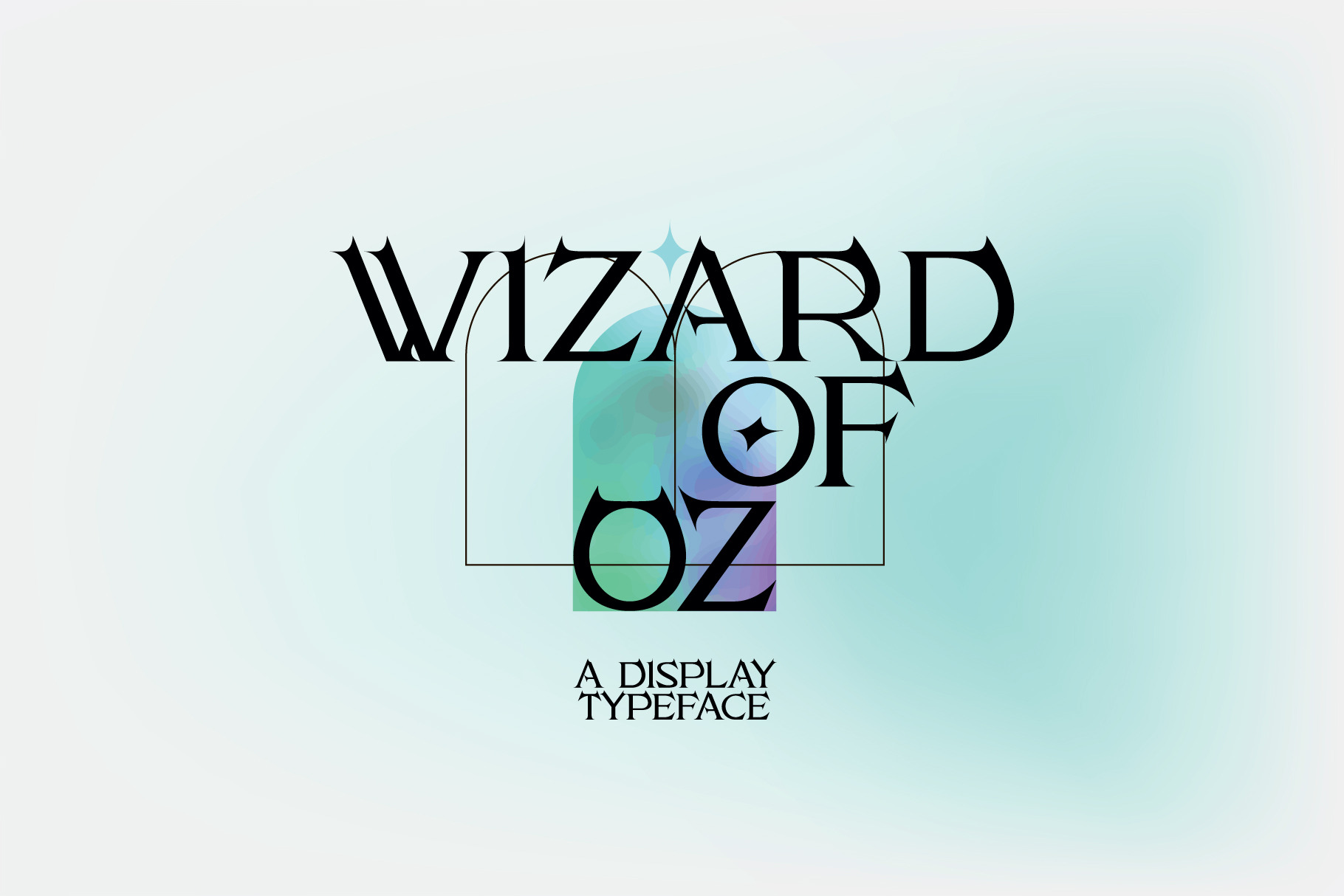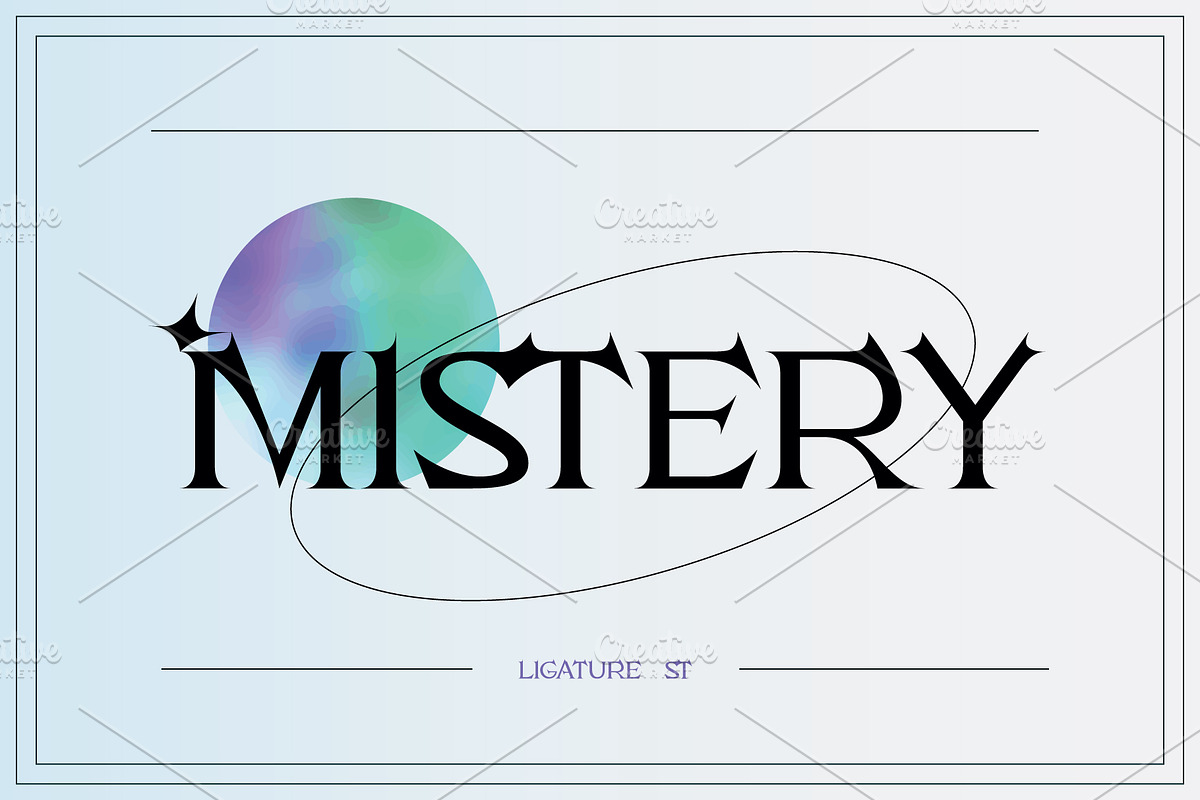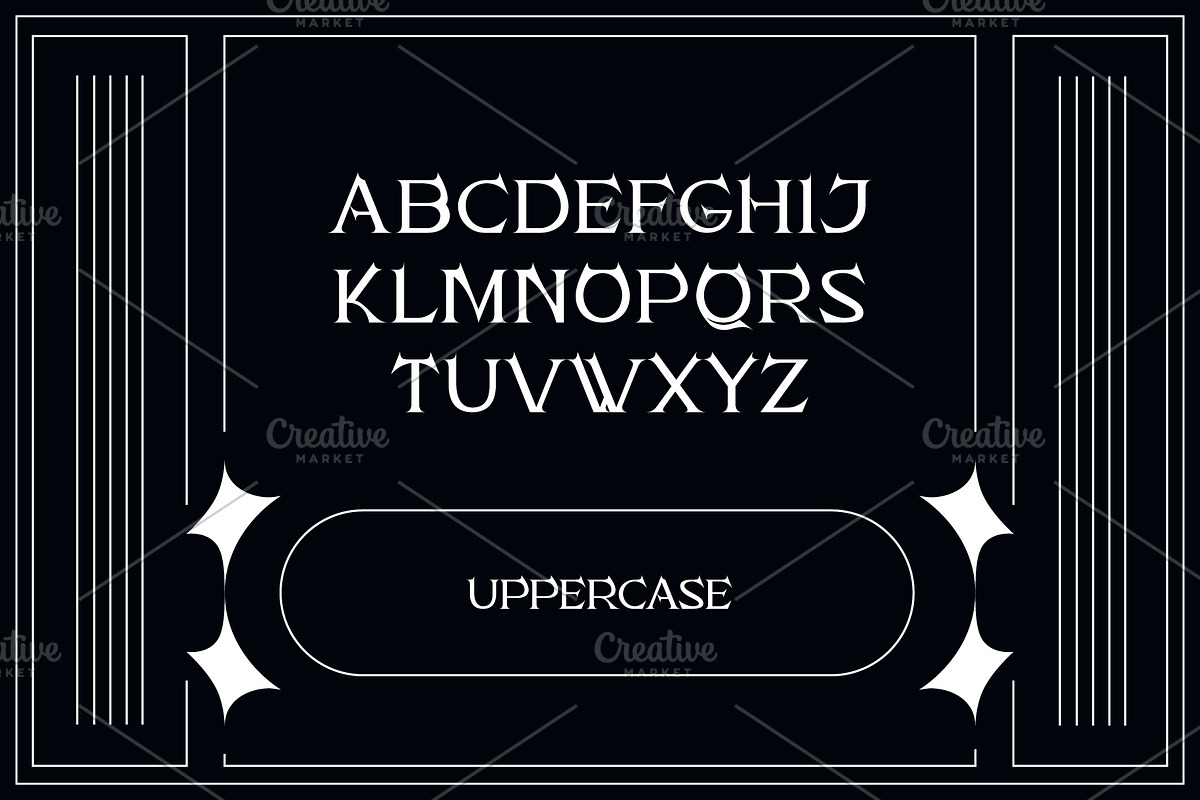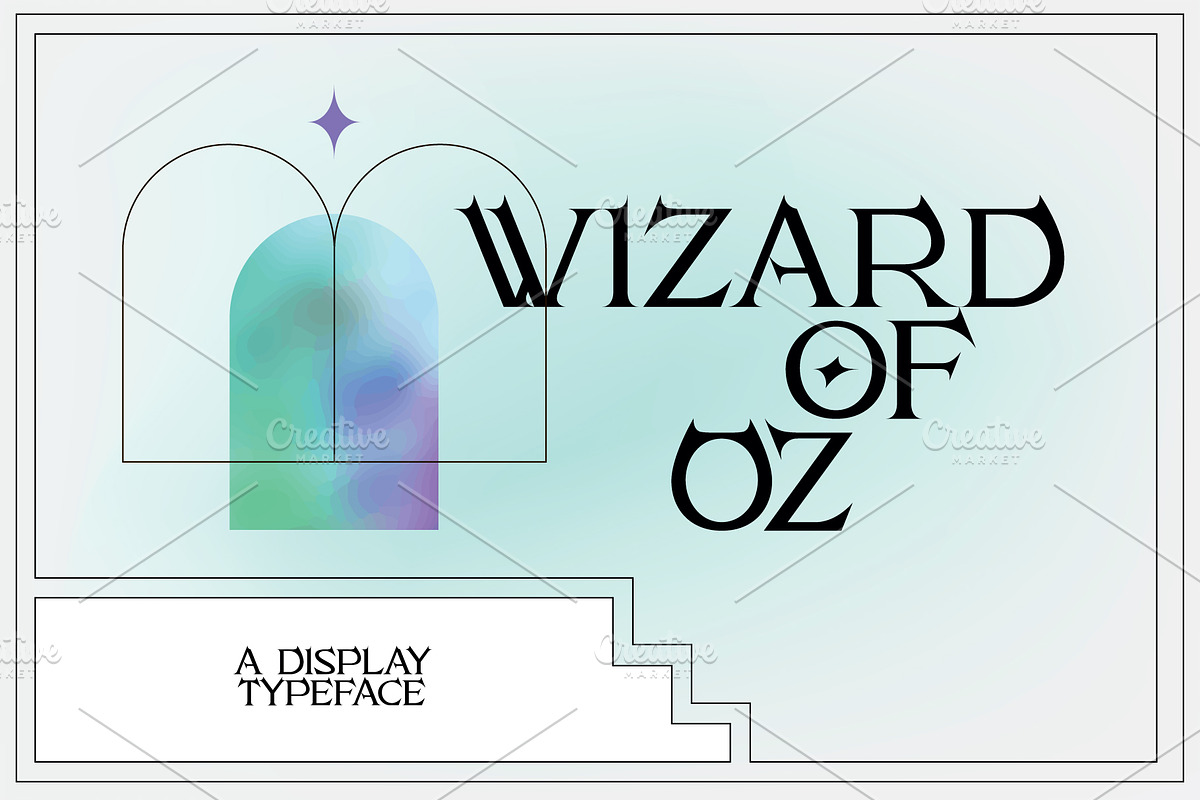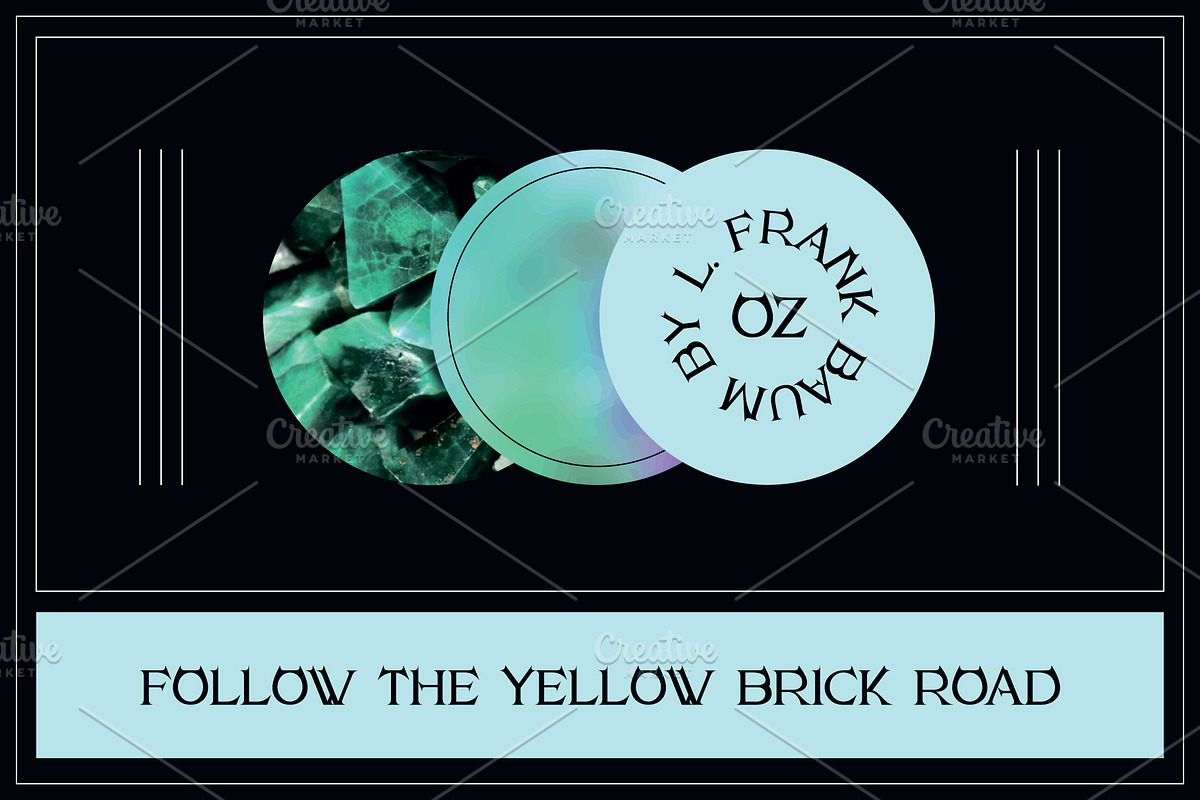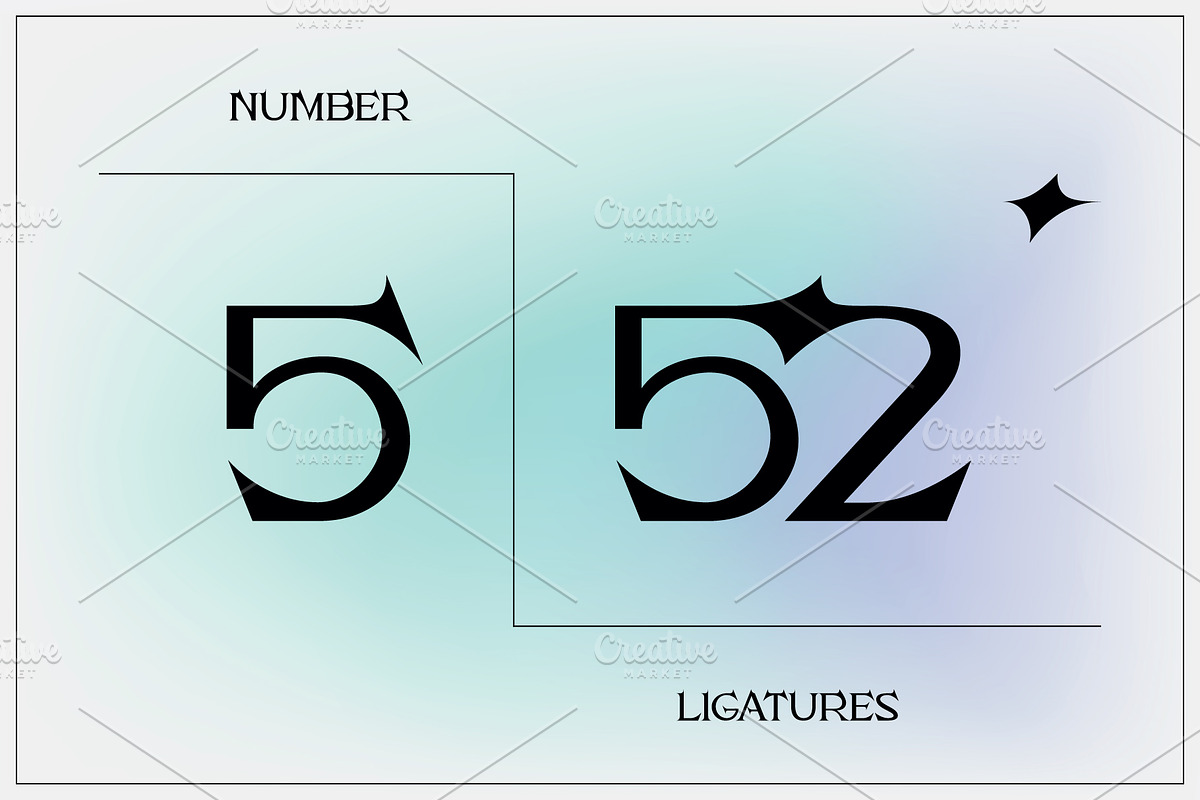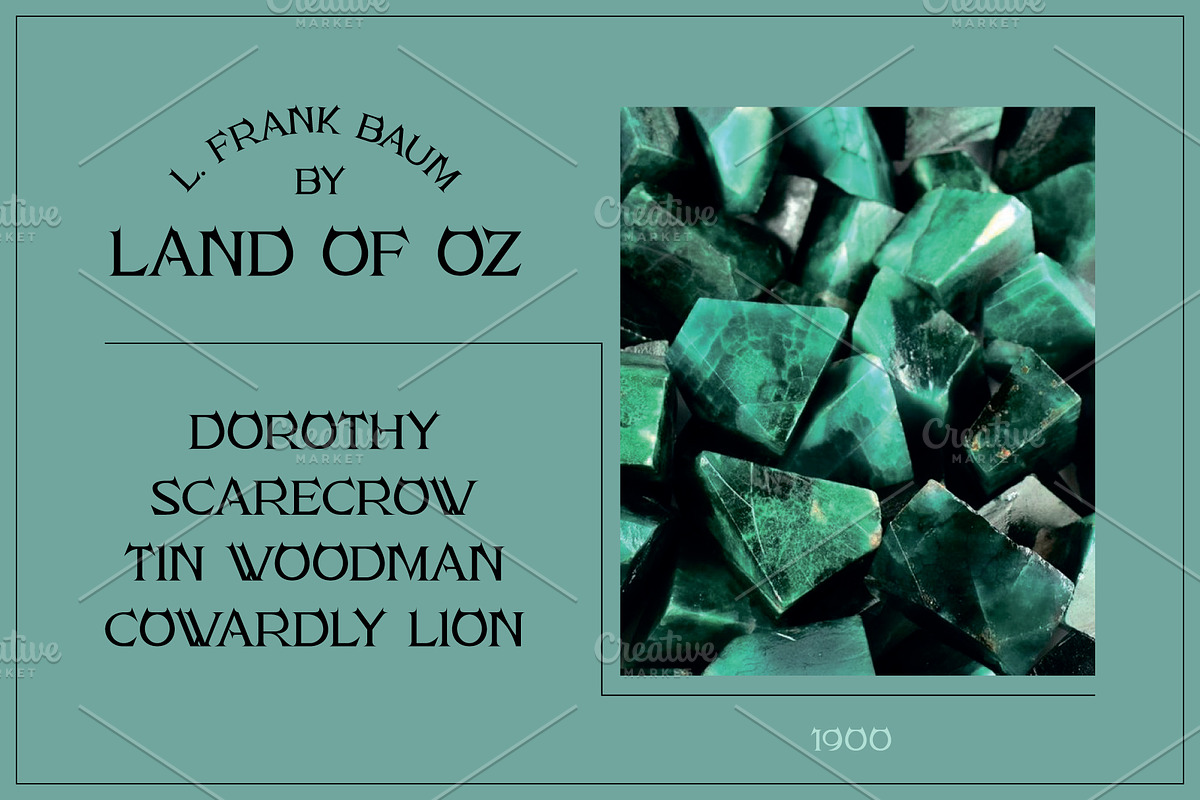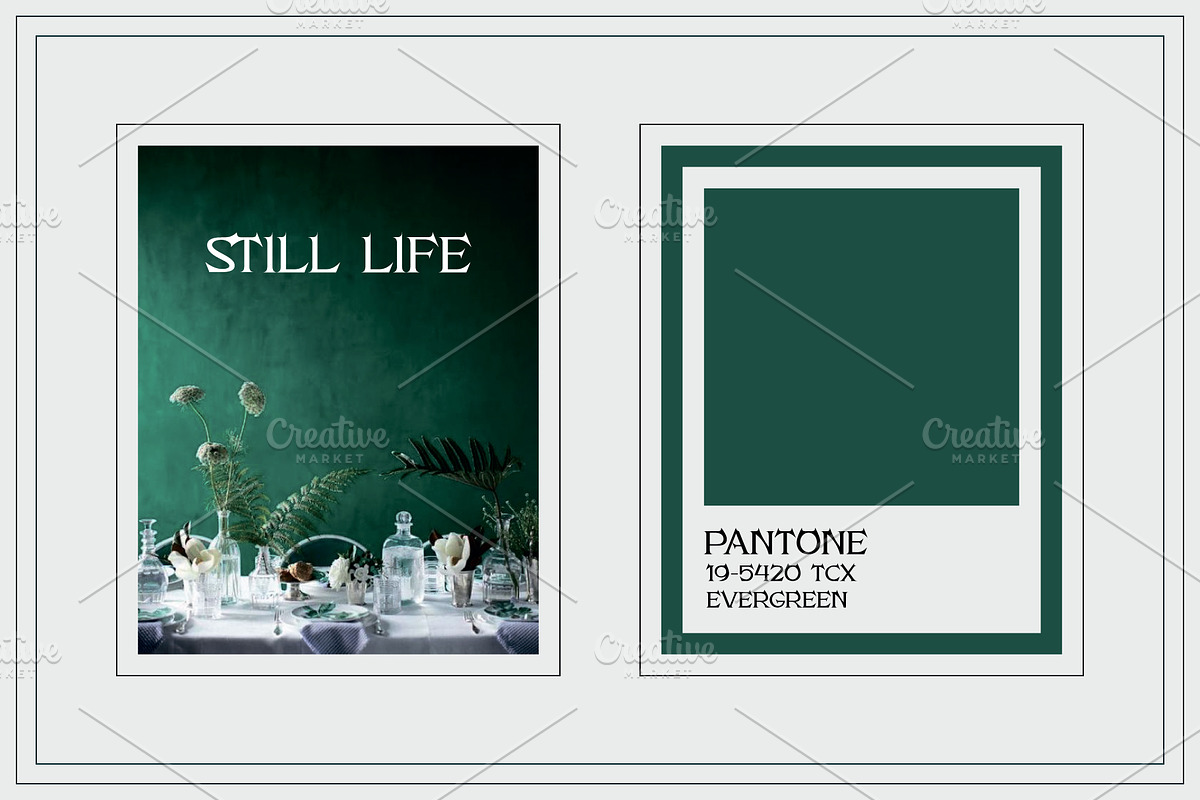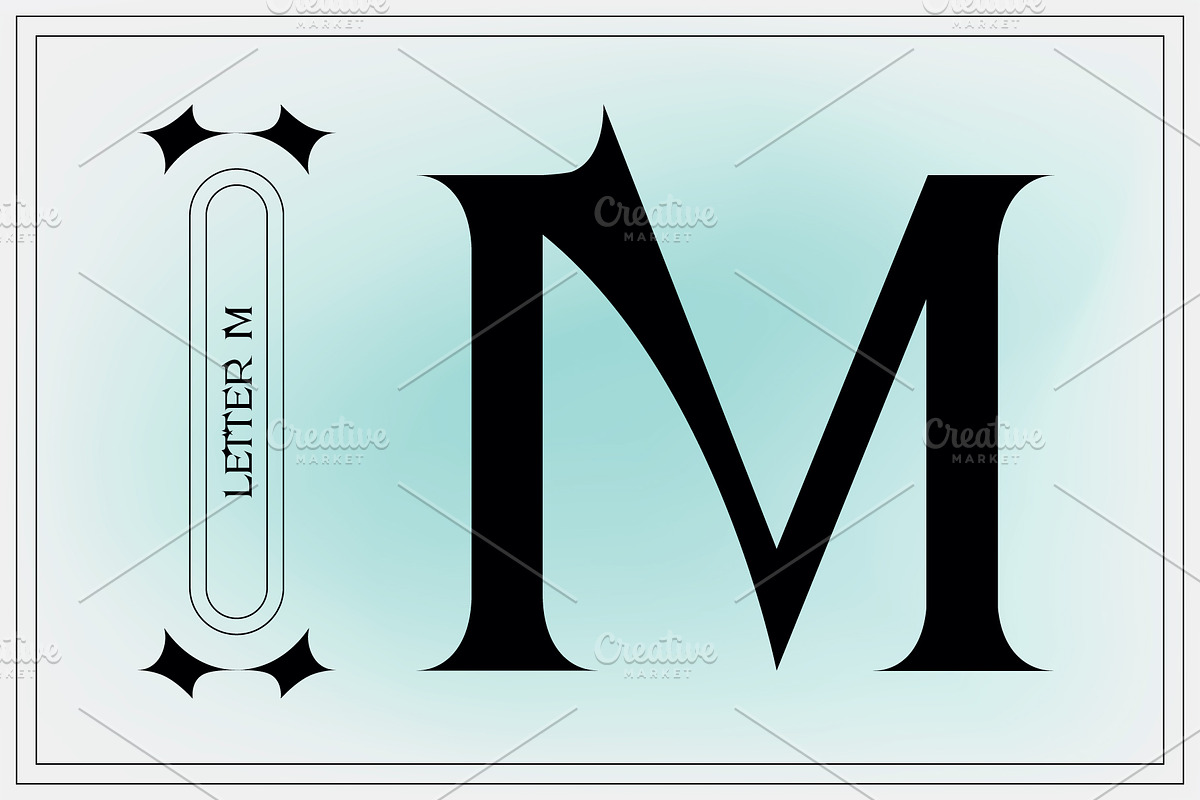
Wizard of OZ Font
Wizard of OZ is a display uppercase font. It has unusual sharp serif, which are figurative beautiful ligatures. The font has many ligatures.